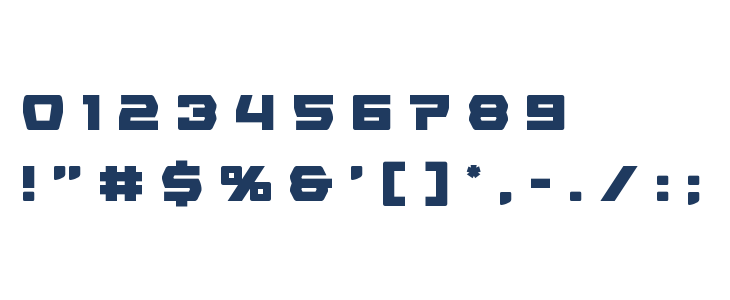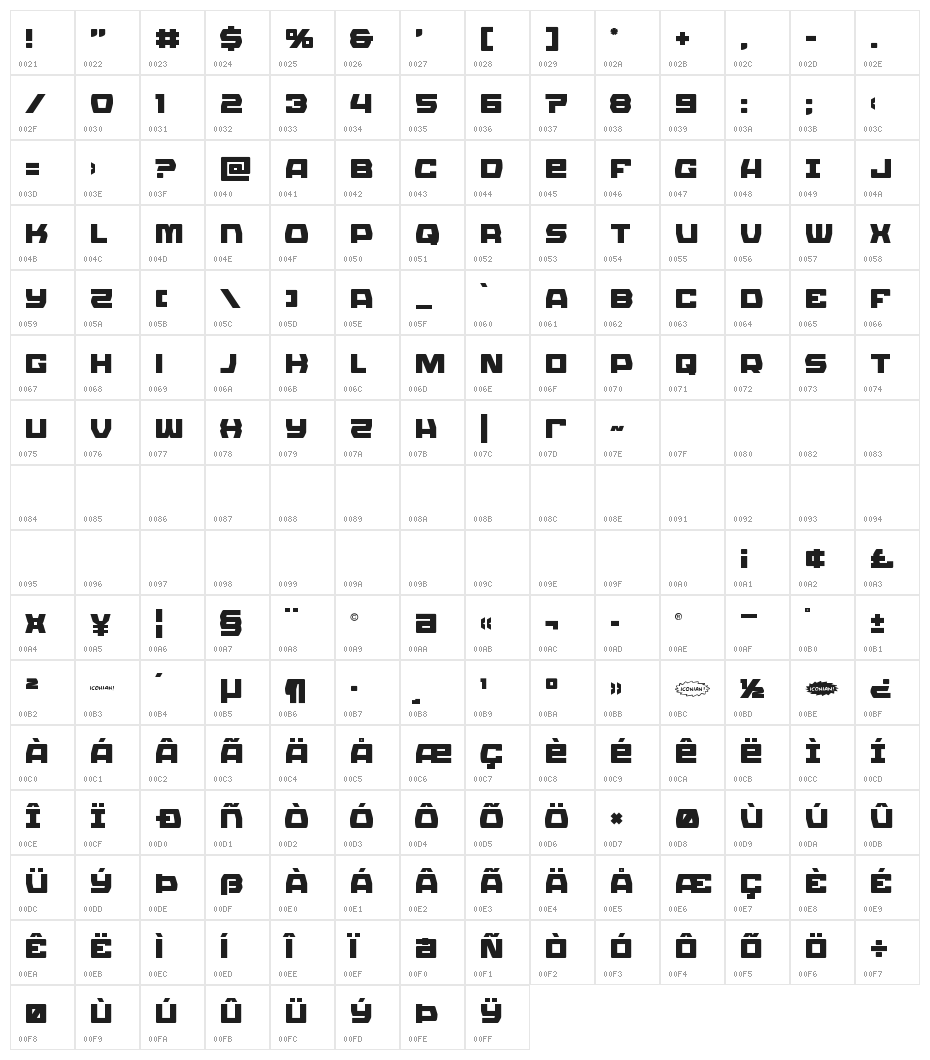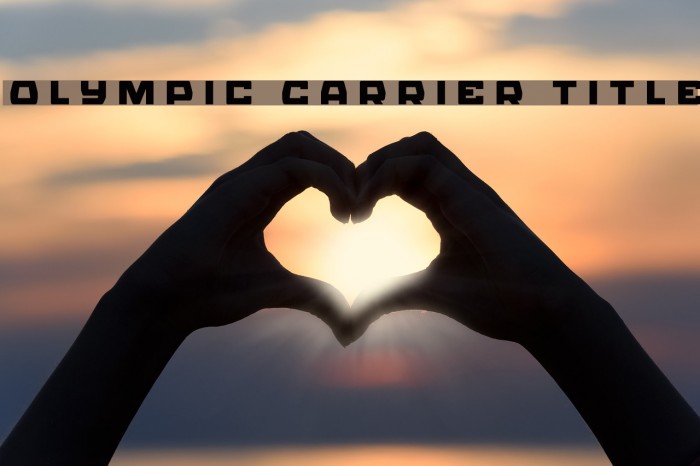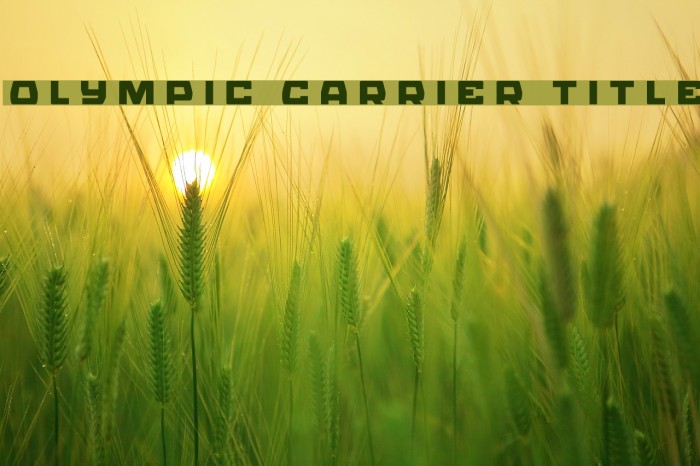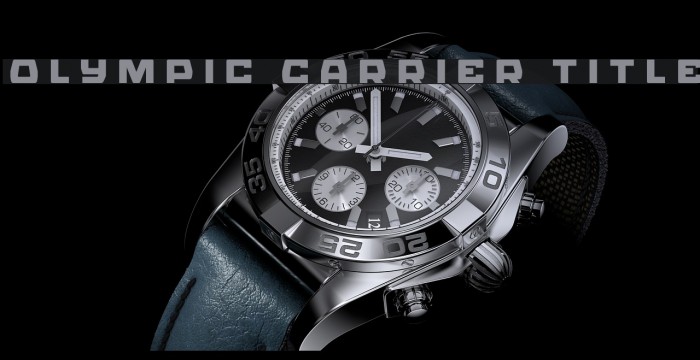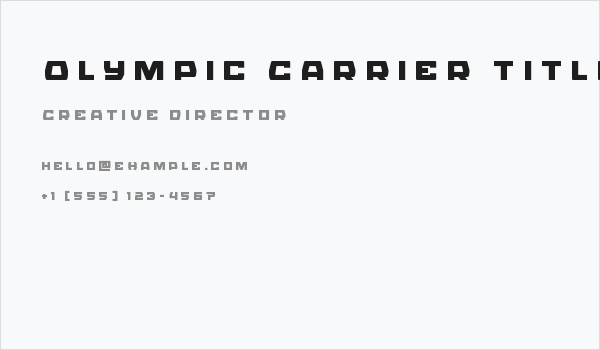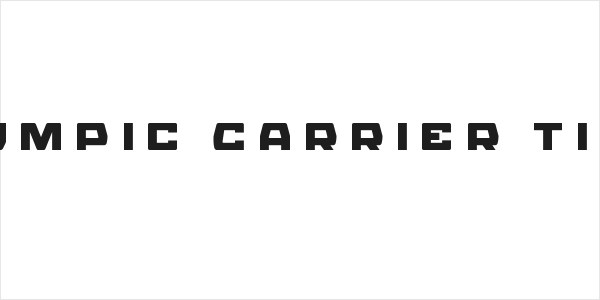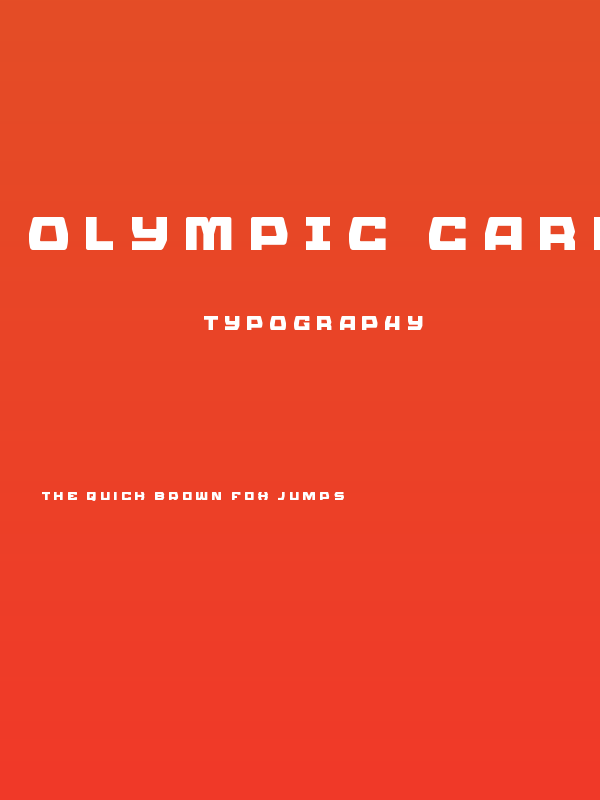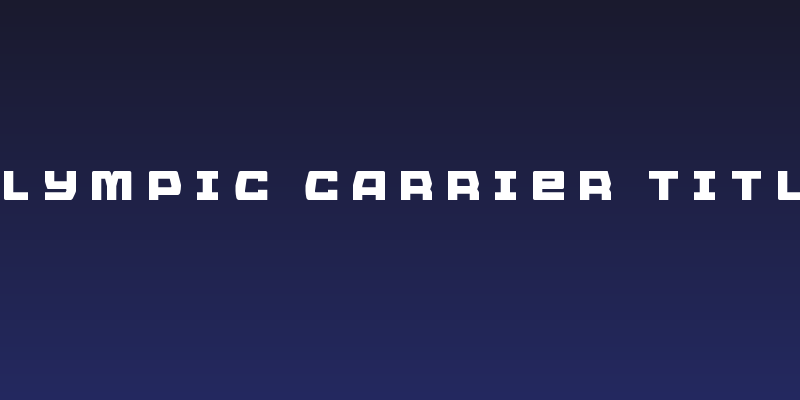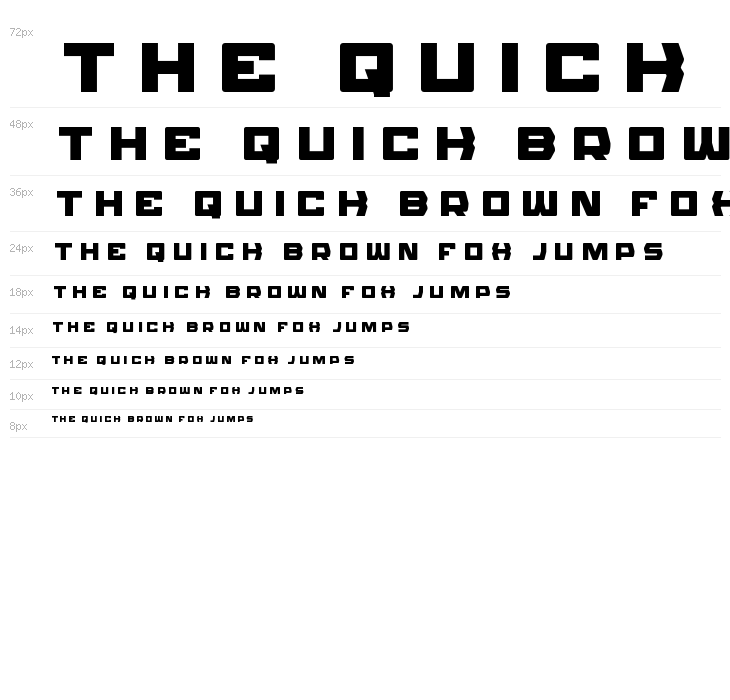
Olympic Carrier Title Font
Olympic Carrier Title Description
This font features a bold, geometric design with a strong, industrial feel. The characters are constructed with sharp angles and straight lines, giving them a modern and futuristic appearance. The uppercase and lowercase letters maintain a consistent style, with a uniform height and width that enhances readability. The numerals and special characters are designed to match the boldness of the alphabet, ensuring a cohesive look across all text. This font's distinct style makes it ideal for projects that require a strong visual impact.